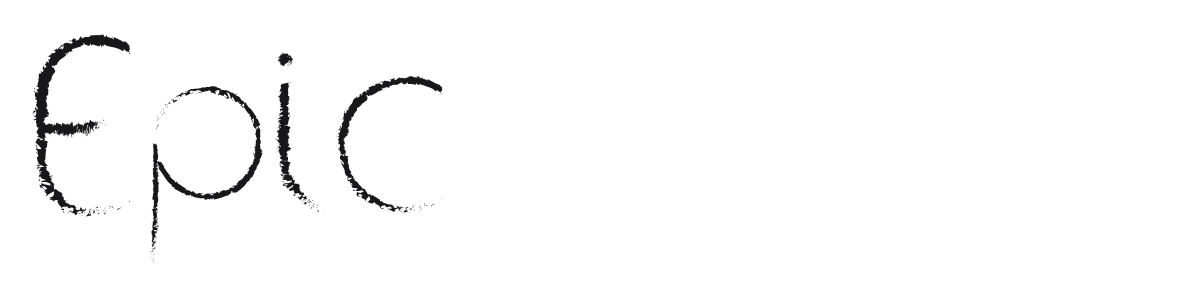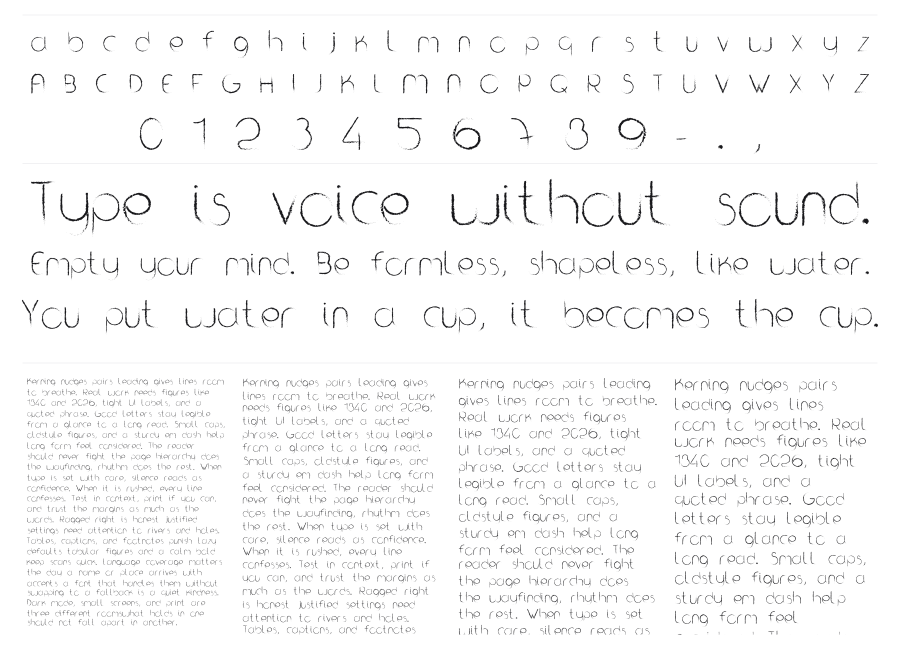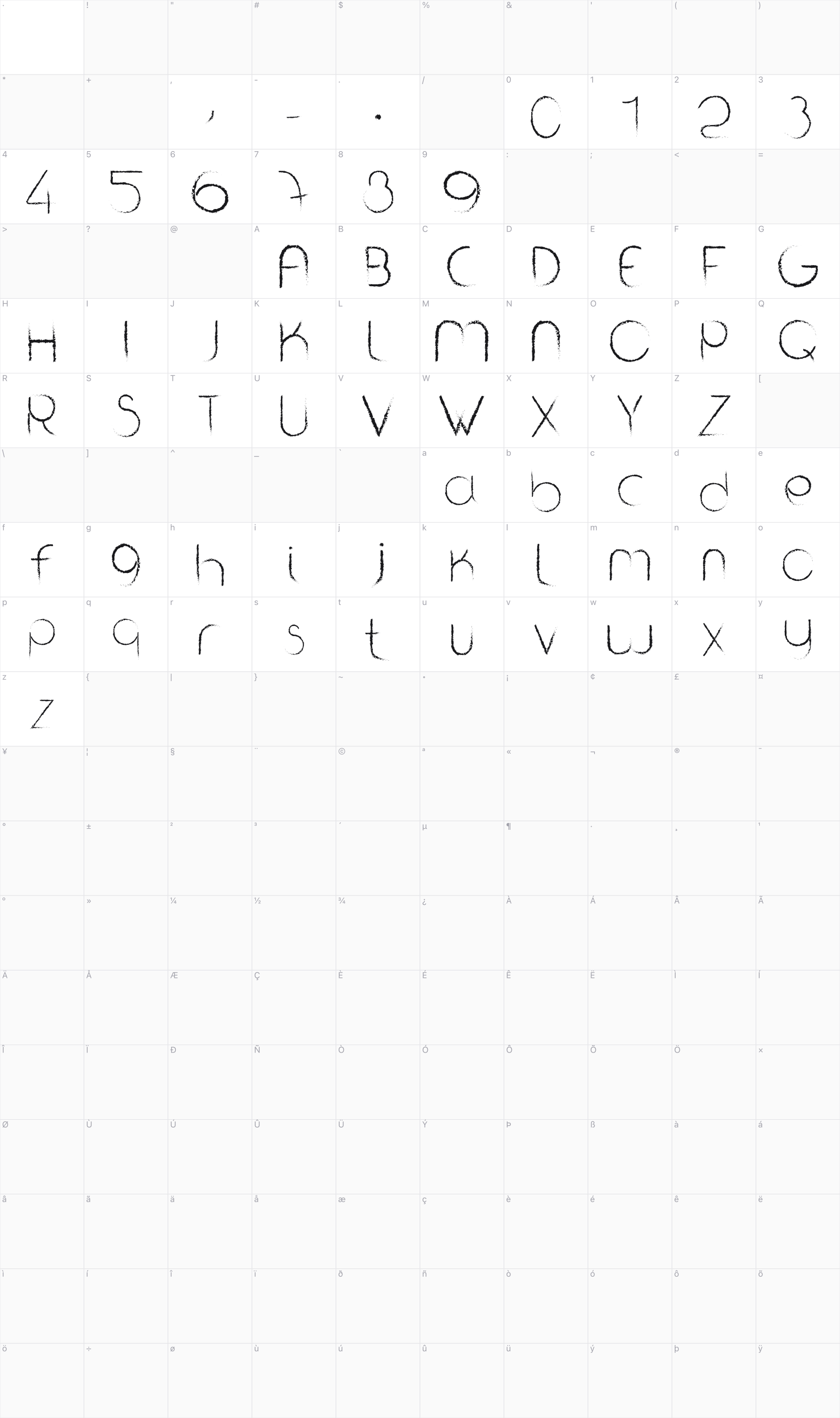
Epic
Epic is a thin sans-serif with heavily eroded strokes that look as though each character was drawn in charcoal or dry ink on rough paper. The underlying structure is clean and geometric, but the degraded texture gives it a raw, handcrafted energy. It works best at large sizes where the surface detail can breathe.